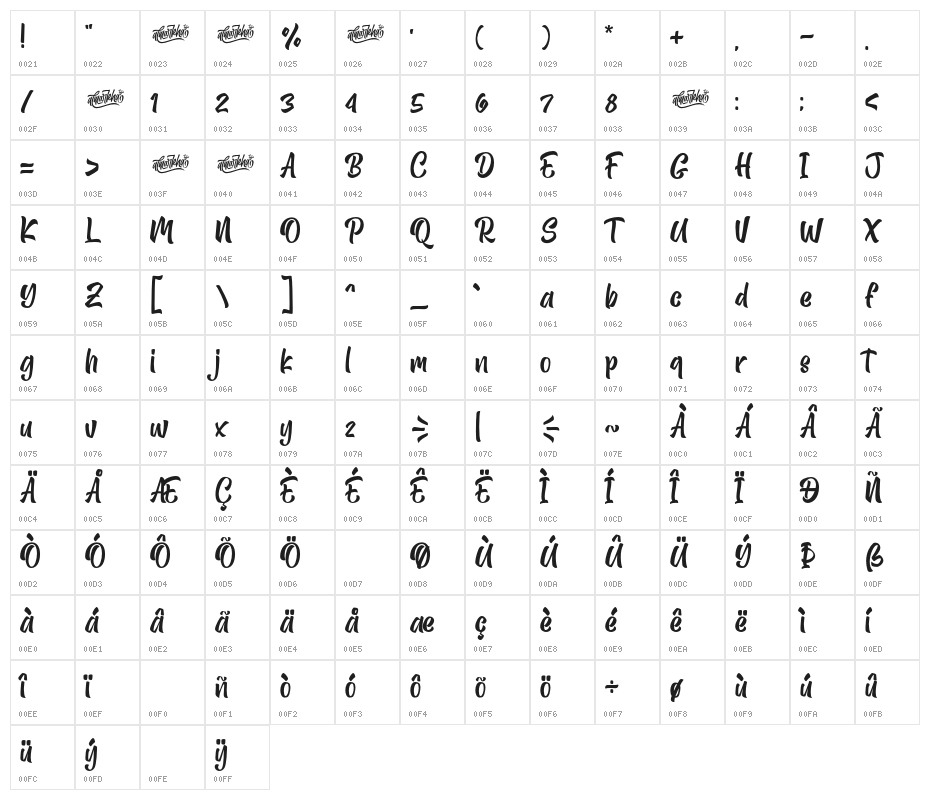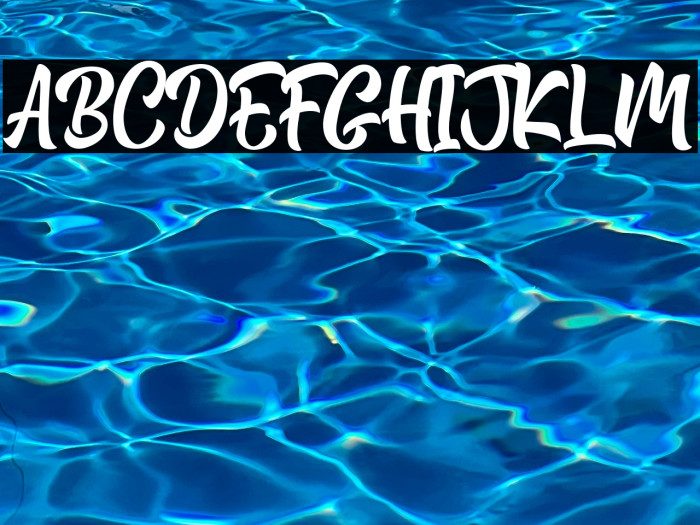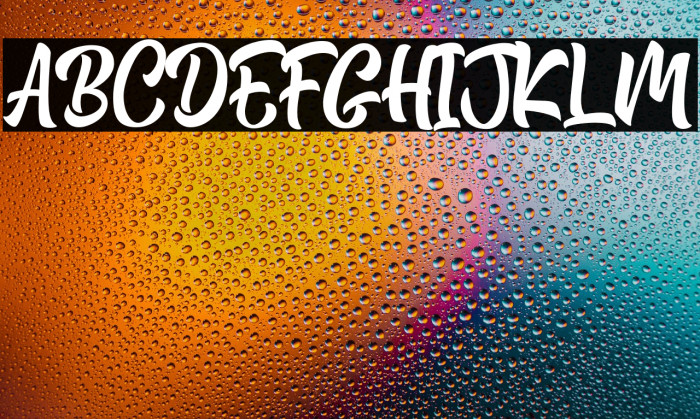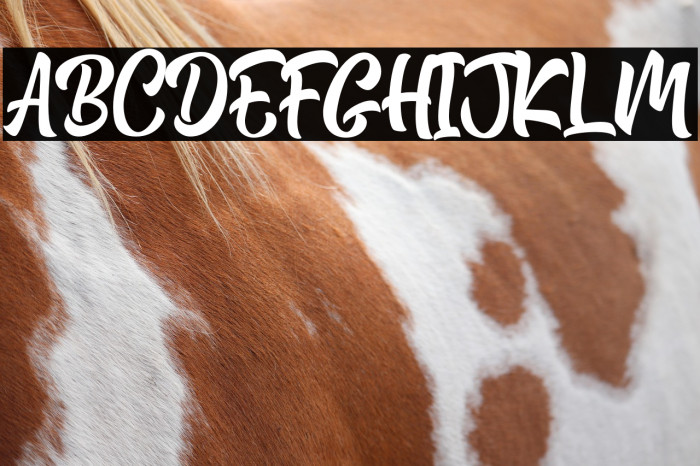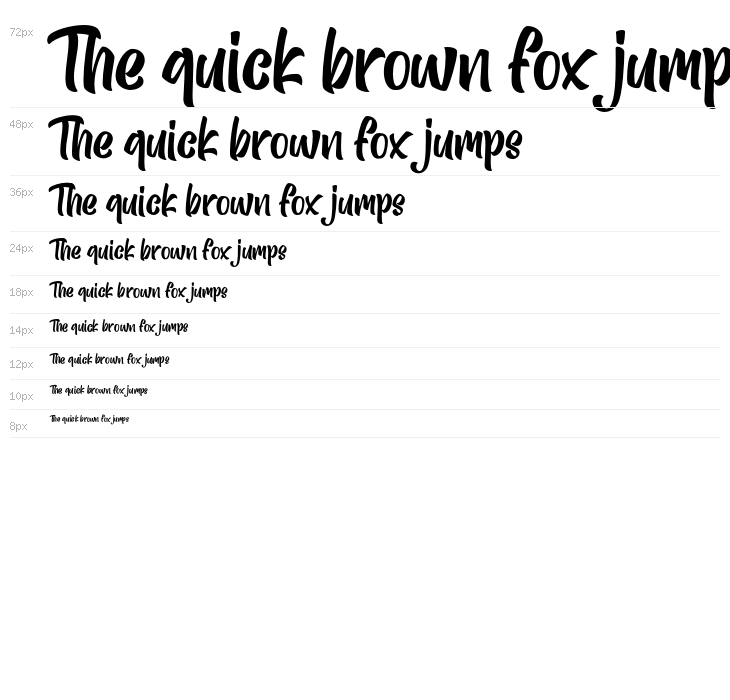
Alibabe Font
Alibabe Description
This font features a bold, expressive script style with a dynamic and energetic flow. The letters are characterized by thick, sweeping strokes and a sense of movement, making it ideal for creating eye-catching designs. The uppercase letters are bold and prominent, while the lowercase letters maintain a consistent style with a slightly more relaxed form. The numbers and special characters are designed to match the overall aesthetic, ensuring a cohesive look across all elements. This font's unique style makes it perfect for projects that require a personal, handcrafted touch.
| Proposed Projects | This font is ideal for branding, logos, packaging, invitations, and any project that requires a personal and artistic touch. |